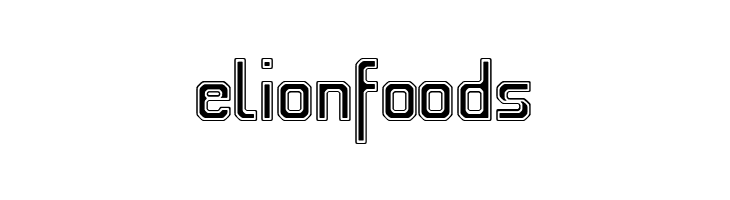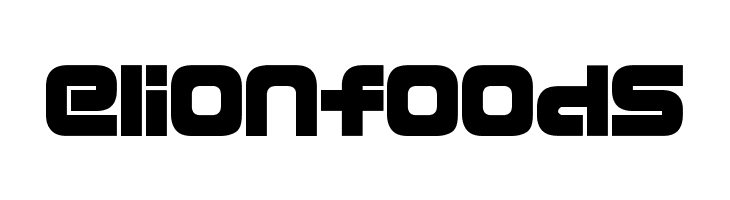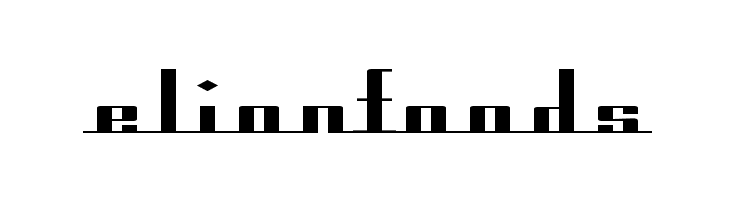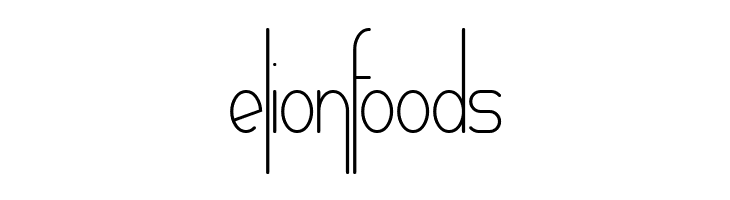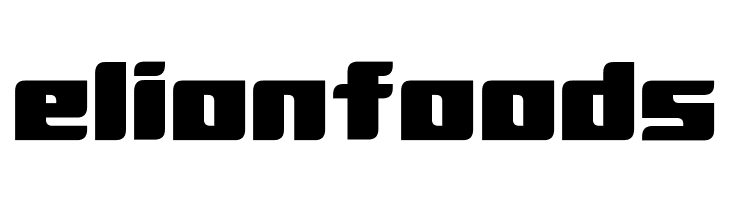
A bold, playful serif font with exaggerated serifs and a strong presence.
A bold, outlined font with a geometric and modern style.
A bold, geometric font with rounded edges and a modern, futuristic style.
A bold, geometric font with a modern and technical design.
A vertically elongated, ultra-condensed font with thin strokes and a modern aesthetic.
A bold, geometric font with rounded edges and a strong presence.